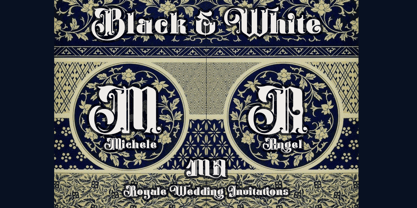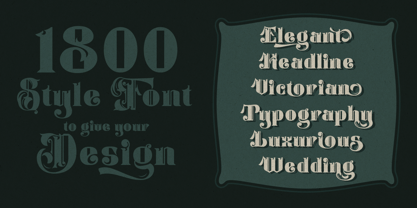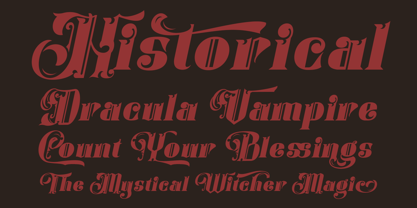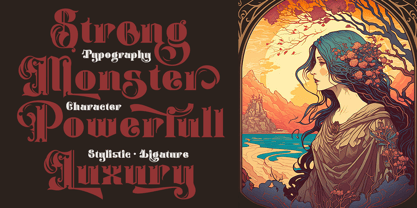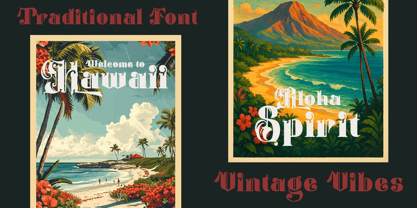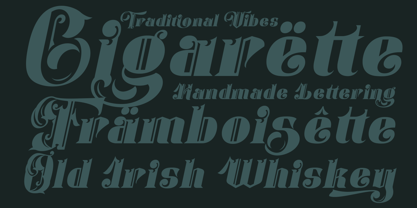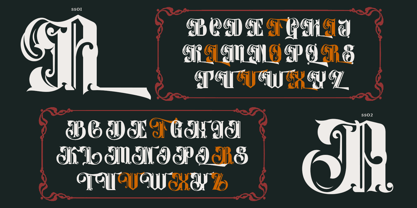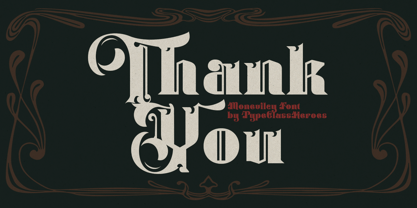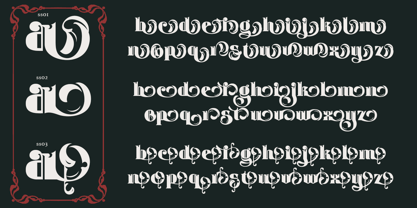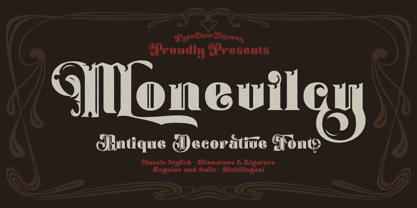
Monevilcy
The Monevilcy Font Family was designed by Suandana ipandemade and published by TypeClassHeroes. Monevilcy contains 2 styles and family package options. More about this family
Introducing Monevilcy, this antique decorative style font features bold, high-contrast characters, sharp angles, and artistic flourishes. It creates a classic, strong, and elegant impression. This font is suitable for logos or branding with vintage or classic themes, tattoo designs, and album covers. It's designed for visual identities that want to appear distinctive and authoritative.